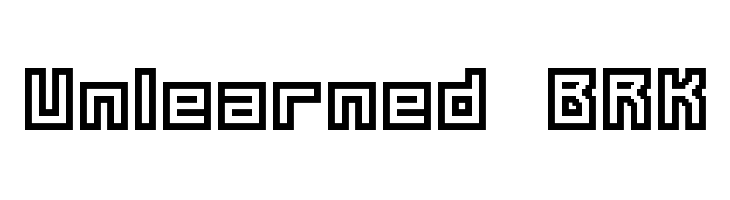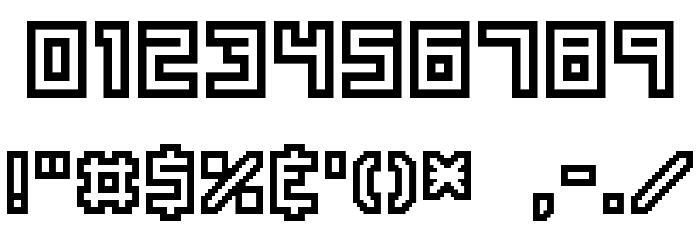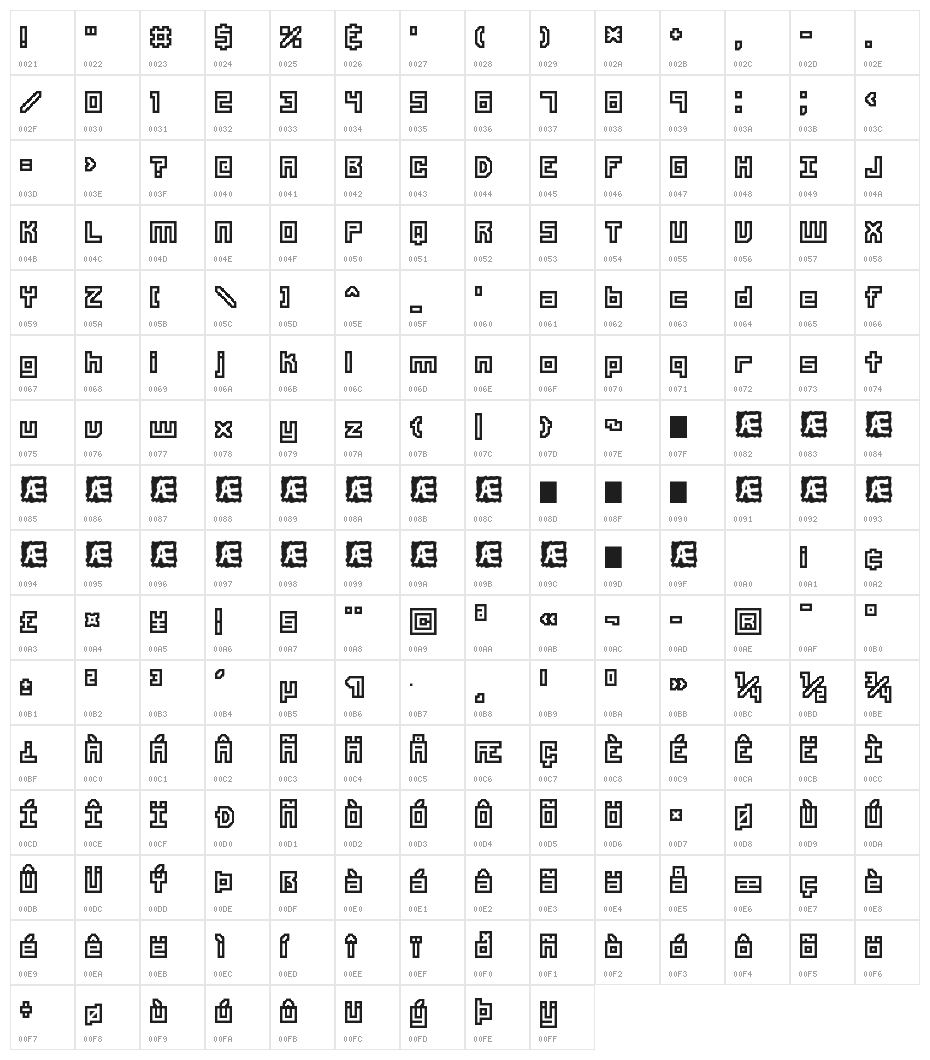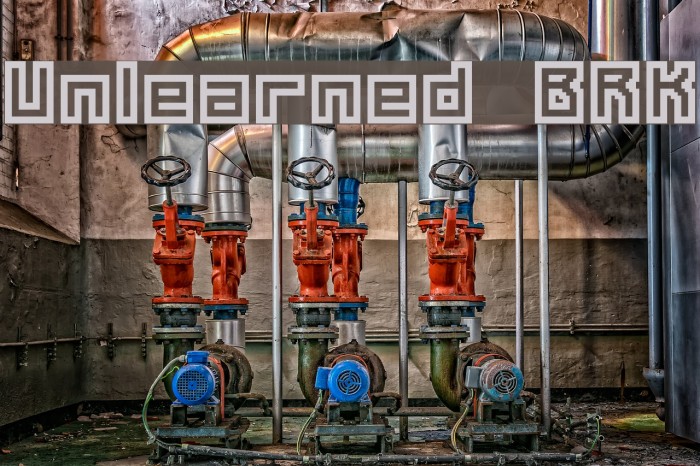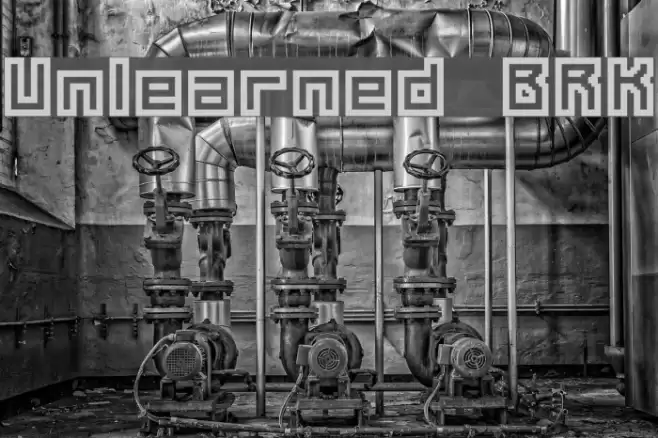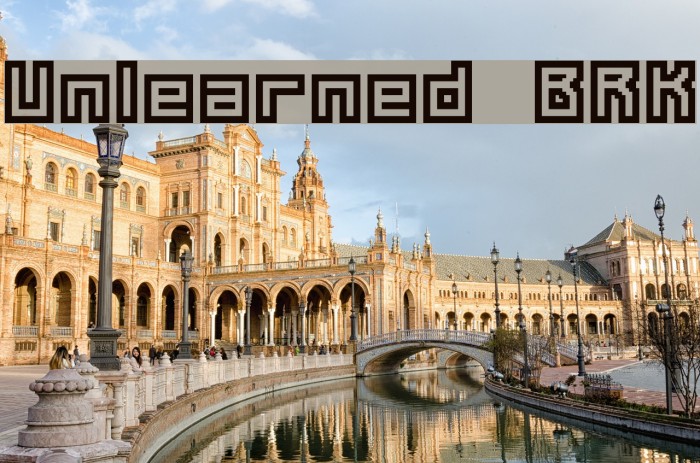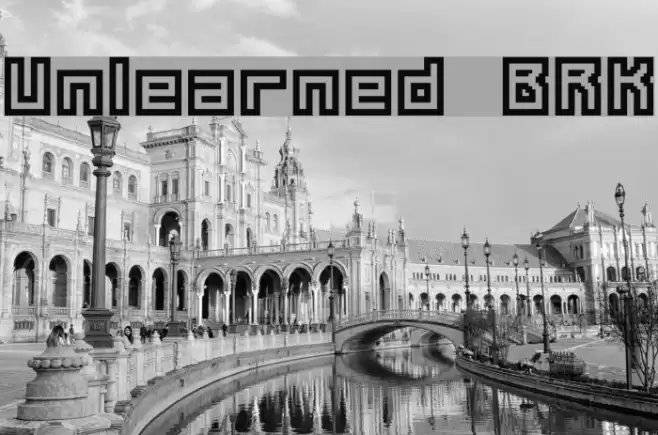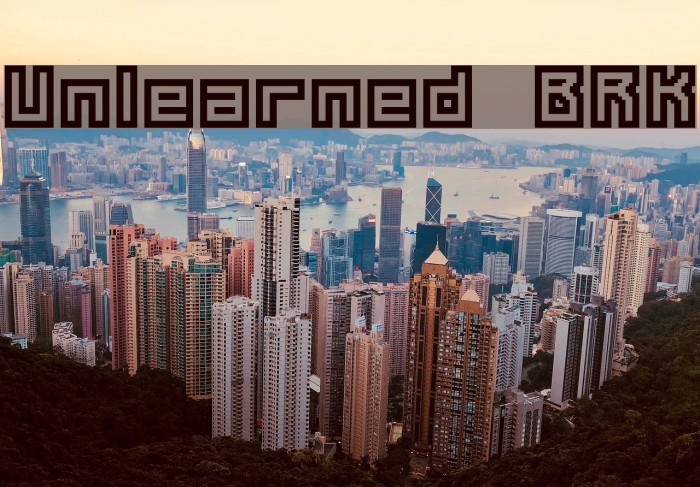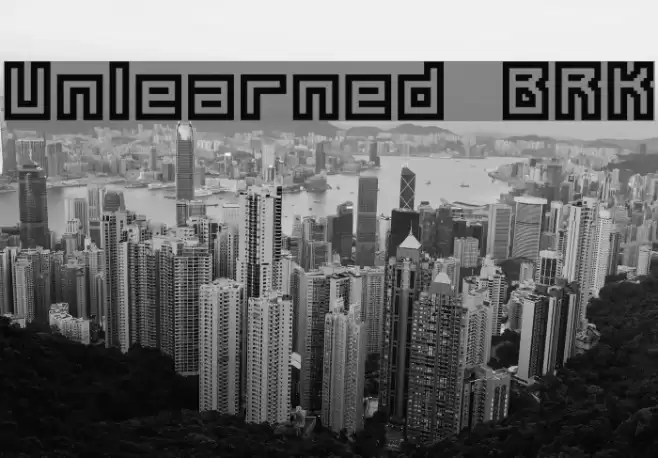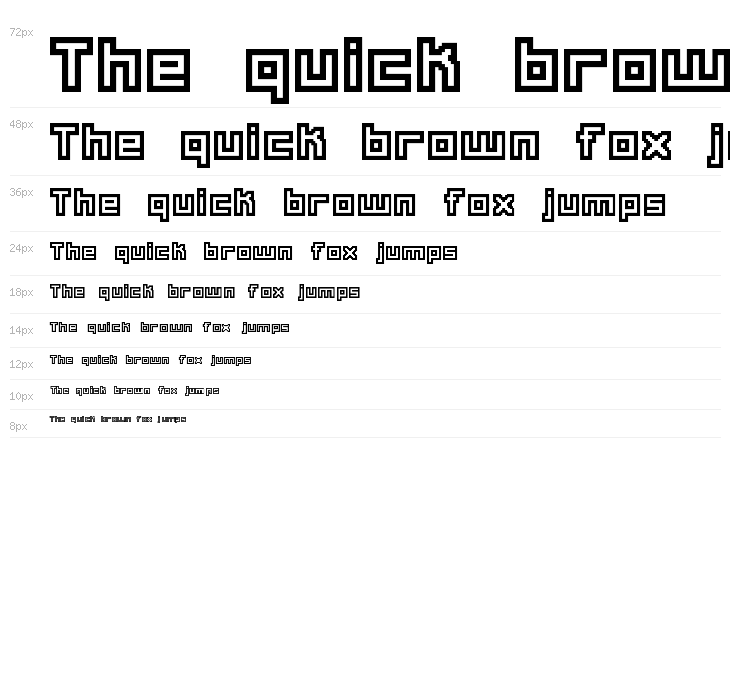
Unlearned BRK Font
Unlearned BRK Description
This font features a bold, geometric design with a distinct blocky appearance. Each character is outlined, giving it a three-dimensional effect that stands out. The uppercase and lowercase letters maintain a consistent height, creating a uniform look. The numerals and special characters follow the same stylistic approach, ensuring cohesion across all elements. The font's structure is reminiscent of digital or pixel art, making it ideal for projects that require a modern, tech-inspired aesthetic. Its unique style is both eye-catching and functional, suitable for various creative applications.
Proposed ProjectsPerfect for digital art, video game graphics, tech branding, and modern posters.